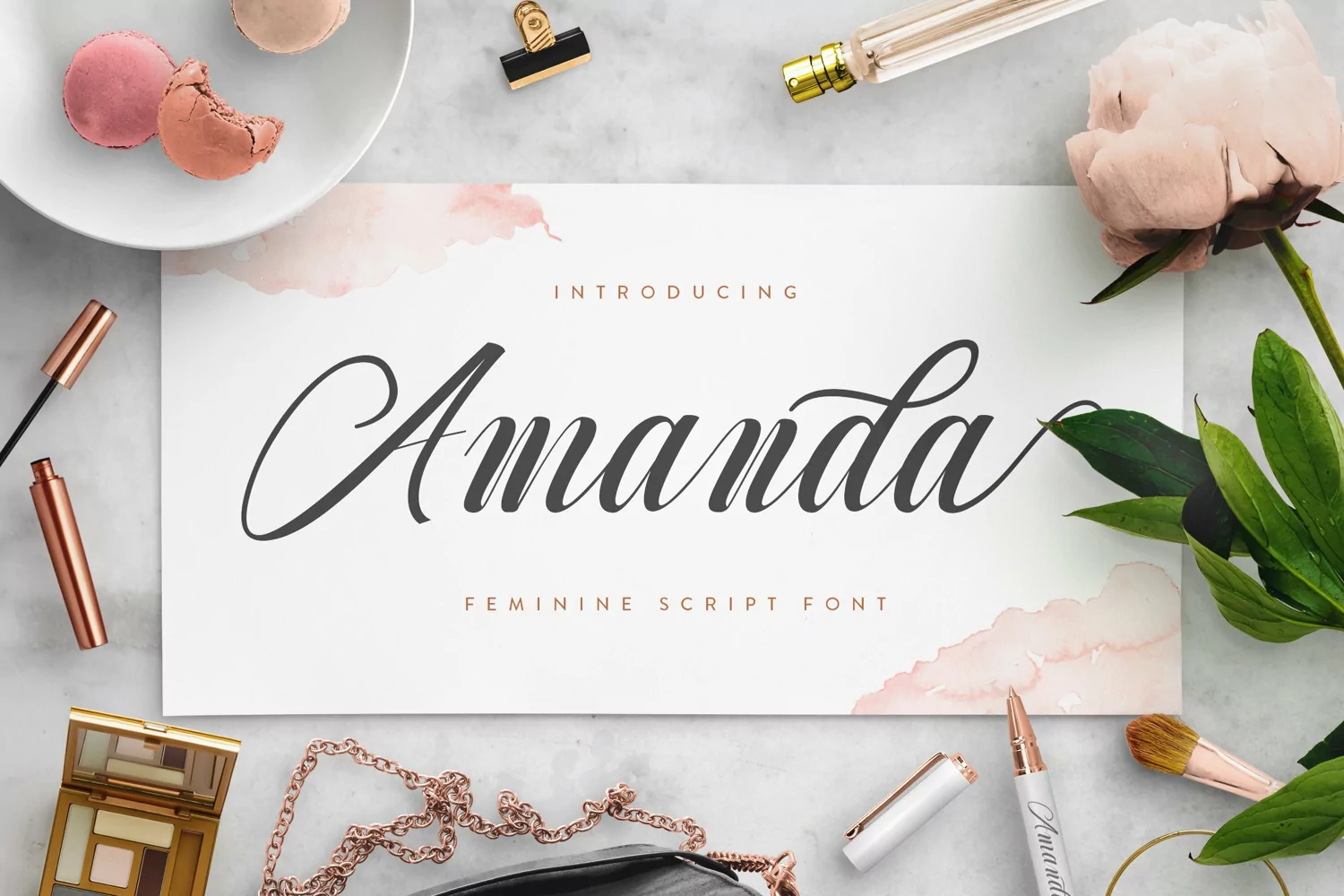
Amanda is an elegant script font. She swirls across the page with elegance and style, with a light and feather like touch. This lovely script font is the ideal choice for wedding designs, invitations, logos, branding and so much more. Feminine and elegant, yet easy to read, this font is a great one for your font library!